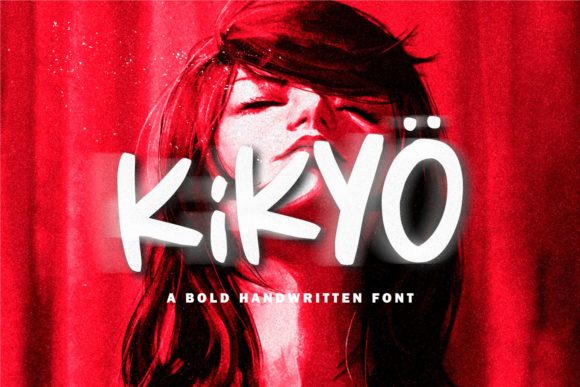
Kikyö: A Fun and Bouncy Display Font
Kikyö is a display font that brings energy and personality to any design. With its chunky, playful style, it stands out in a sea of standard fonts. Whether you're creating a website, a poster, or a social media graphic, Kikyö adds a unique flair that can elevate your visual content.
What Makes Kikyö Unique?
Kikyö is designed with bold, rounded characters that give it a fun and bouncy feel. Its chunky letterforms make it ideal for attention-grabbing headlines and eye-catching visuals. The font's versatility allows it to work well across various platforms and mediums, from digital to print.
Unlike many other display fonts, Kikyö maintains readability even at smaller sizes. This makes it suitable for both large-scale branding and more subtle design elements. Its playful nature also means it can be used in a variety of contexts without losing its charm.
Why Different Audiences Might Care About Kikyö
For different users, the appeal of Kikyö can vary significantly. Beginners might find its bold style easy to use and visually appealing, while professionals may appreciate its flexibility and adaptability. Let’s explore how various groups might interact with this font.
Beginners: A Simple Start
For those new to design, Kikyö offers an accessible entry point. Its chunky letters are easy to read and can help beginners build confidence in their projects. It’s especially useful for creating social media posts, personal blogs, or small business websites where a fun and approachable look is desired.
Professionals: A Versatile Tool
Professionals often seek fonts that can adapt to different project needs. Kikyö fits this bill perfectly. Its bold and playful style can be used for brand logos, promotional materials, and even data visualization. It’s not limited to just one type of project, making it a valuable addition to any designer's toolkit.
Additionally, Kikyö's clean lines and consistent spacing make it reliable for professional settings. Whether you're designing a presentation or a marketing campaign, the font's clarity ensures that your message remains clear and impactful.
Creators and Entrepreneurs: Branding with Personality
For creators and entrepreneurs, Kikyö can be a powerful branding tool. Its distinctive style helps establish a unique identity that stands out in a crowded market. Whether you're launching a new product, promoting a service, or building a personal brand, Kikyö can help you create a memorable visual presence.
The font's adaptability also makes it ideal for a wide range of creative projects. From t-shirts to packaging, Kikyö can be applied to various products, allowing for a cohesive and recognizable brand image.
Educators and Hobbyists: Engaging Learning Tools
Educators and hobbyists may find Kikyö useful for engaging students or enthusiasts in creative activities. Its playful nature can make learning more enjoyable, especially in subjects like design, typography, or art. Teachers can use it to create interactive lesson plans or visual aids that capture students' attention.
Hobbyists, on the other hand, might enjoy experimenting with Kikyö in their personal projects. Whether it's crafting custom signs, designing greeting cards, or creating digital art, the font's versatility encourages creativity and exploration.
Choosing the Right Font for Your Needs
When selecting a font like Kikyö, it's important to consider your specific goals and project requirements. For instance, if you're working on a formal document, a more traditional font might be more appropriate. However, for a fun and dynamic design, Kikyö can be the perfect choice.
Consider factors such as ease of use, cost, quality, and long-term usefulness. Kikyö is available through various font providers, so it's important to choose a reliable source that offers good customer support and updates. This ensures that you can continue using the font effectively over time.
Practical Examples for Different User Types
- Beginners: Use Kikyö for social media headers or blog titles to add a fun touch.
- Professionals: Incorporate Kikyö into marketing materials or presentations for a bold and engaging look.
- Entrepreneurs: Apply Kikyö to branding elements like logos or packaging to create a unique brand identity.
- Teachers: Use Kikyö in classroom activities or educational materials to make learning more interactive.
- Hobbyists: Experiment with Kikyö in personal projects like DIY crafts or digital art.
By understanding how different audiences might benefit from Kikyö, you can better determine whether it aligns with your own goals and needs. Whether you're a beginner exploring design or a professional looking for a versatile tool, Kikyö has something to offer. With its fun and bouncy style, it can bring life to your designs and help you stand out in a competitive space.